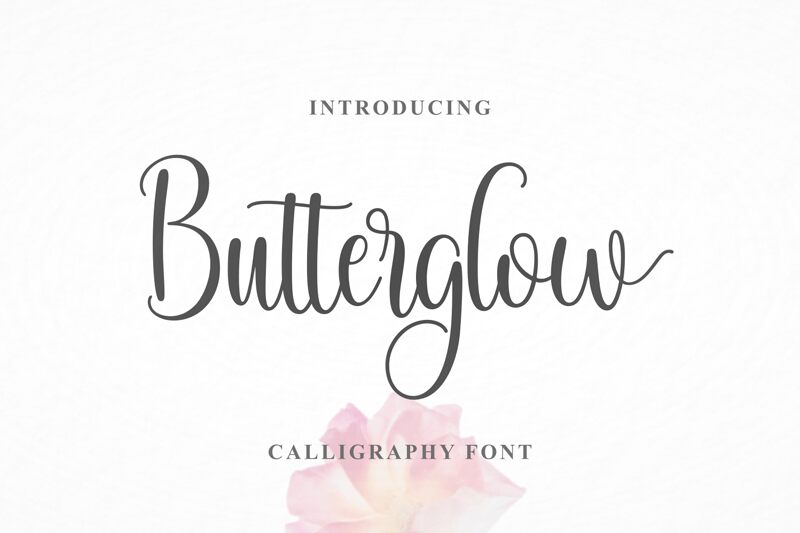
Butterglow font by Makashi is a brilliant free calligraphy font that is both cursive and expressive. It has an elegant and modern script style with thin, flowing strokes intersecting together perfectly. Every character has smooth transitions that appear harmonious to the eyes for texts projects of any size. The font is condensed in width.
Beautiful uses of Butterglow would be for invitations, greeting cards, wedding designs, book covers, flyer titles, vintage poster designs, apparel design captions, or food package branding. It can also be ideal for business cards headlines or website/portfolio headlines to wow your audience on first glance and drag them to read through.